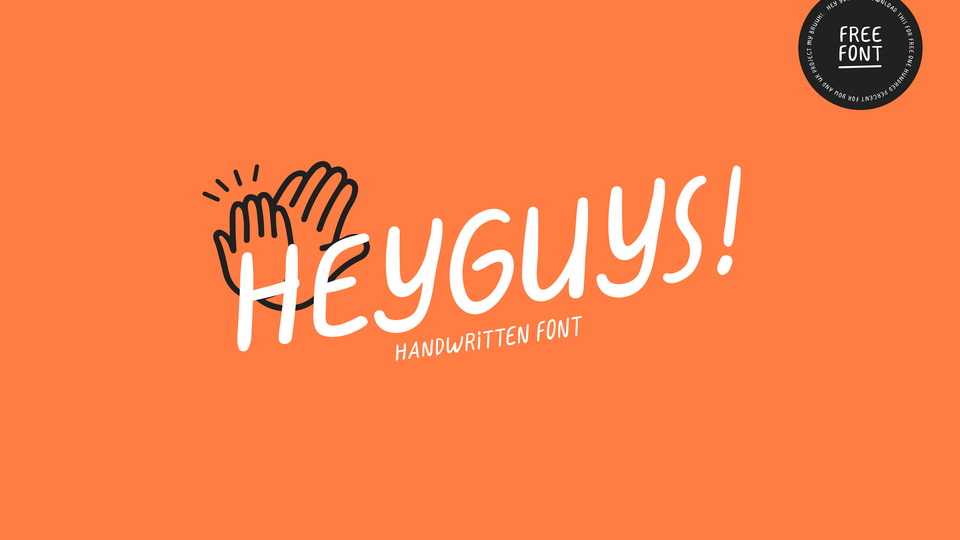
Download HeyGuys! font, a handwritten typeface with themes of calm, fun, youth and such. HeyGuys! font be perfect for books, greeting cards, logos, posters or anything that requires a fun and happiness look!
Designer: Kukuh Rizqyanto